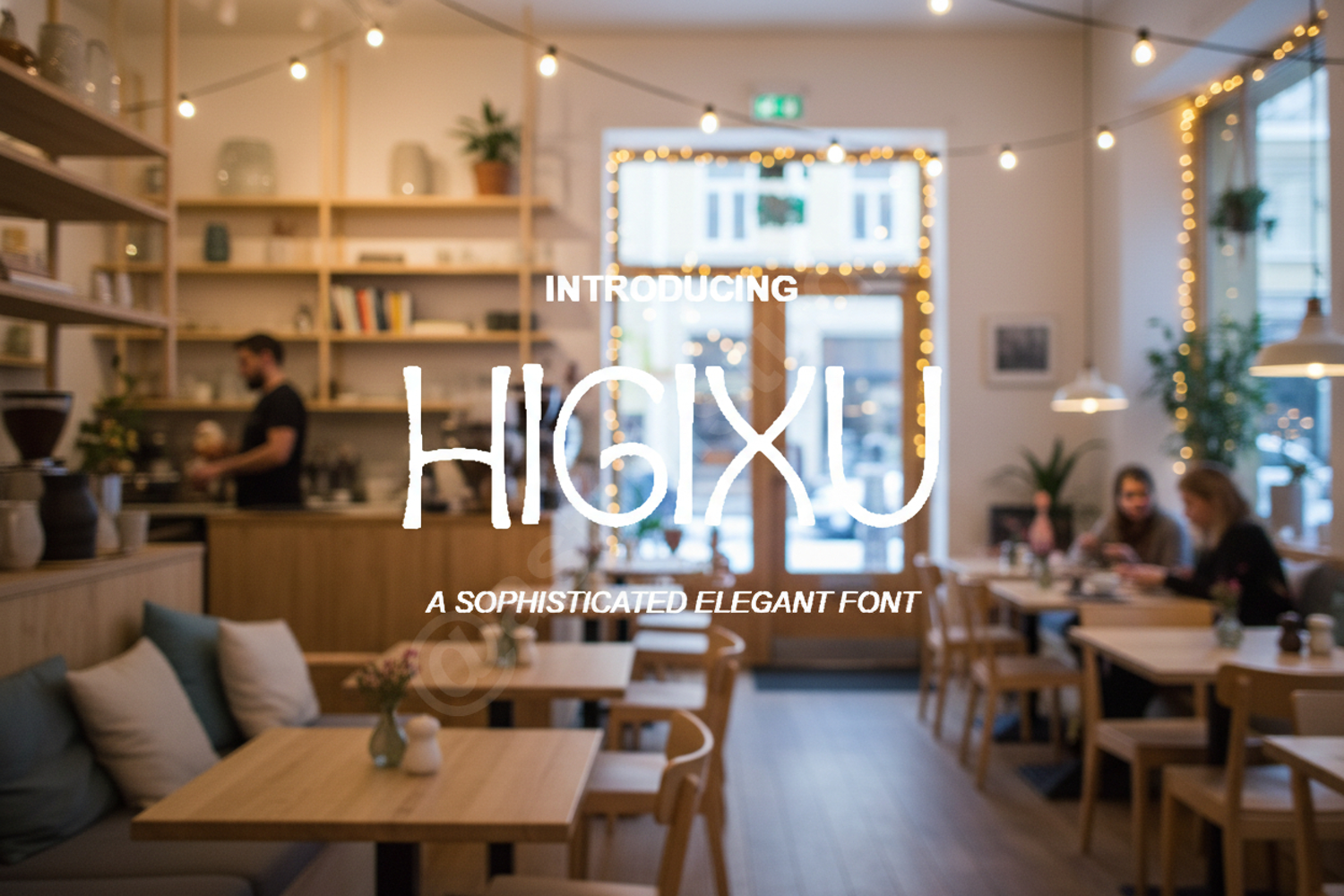
Higixu - Modern Minimalist Sans Serif
Higixu
Introduction:
Meet Higixu, a premium sans serif typeface meticulously crafted for designers who value precision and elegance. With its clean lines and sophisticated geometric balance, Higixu offers a versatile solution for contemporary design projects. Whether you are building a high-end brand identity or a sleek digital interface, this font provides the professional edge you need.
Optimized Use Cases:
- Branding and Identity: Perfect for luxury logos and corporate branding.
- Editorial Design: Ideal for magazine layouts, headlines, and subheaders.
- Digital Marketing: Elevate your social media graphics and website banners.
- Print Media: High-legibility for business cards, posters, and brochures.
- Product Packaging: Adds a modern, high-end touch to contemporary product labels.